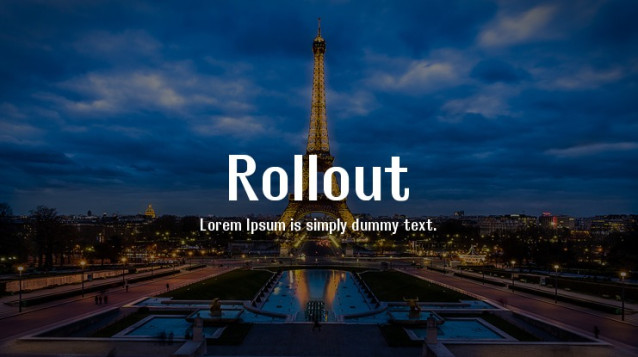
Rollout Font Family
Rollout Font Family a bold statement with our latest sans-serif font. With its clean lines and modern appeal, this font is sure to turn heads and leave a lasting impression. Perfect for headlines, logos, and any design that demands attention. It is both functional and stylish, making it a versatile choice for a wide range of design projects.
I drew Rollout because I wanted a blocky sanserif, like the type you see in ads for discount products. The kind of lettering you can kern close together without doing any real damage.
I added another characteristic which means that Rollout differs from most of the other typefaces of its kind. The letters are all formed from a single template shape – exemplified by the lower case o – and I tried to preserve this trademark shape throughout the face. It’s a logical (and lazy) way to build on the characteristic foursquare shape of heavy, condensed sanserif faces, and it’s a look which (unconsciously) I inherited from Chicago, one of the first fonts drawn for the Apple Mac operating system. Because not all the lowercase letters, let alone the full set of characters, can be built with the shapes found in a lower case o, there are letters which do not follow this squared-off shape. The general look of the typeface is, nonetheless, recognisably due to the squared-off style.
In Italy, I discovered that a face very similar to Rollout is available as transfers or stickers, and is widely used: you can find it on shop signs and on the trams and buses in Rome. Once, at a motorway service station, I came across a spanish truck with the operator’s name in orange capital letters four feet high on the side of the trailer. It was probably the same type as the Italians use: I had to stop and admire it.